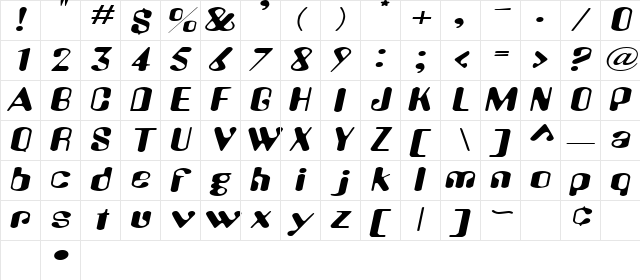
AlienEyeExtended Oblique Free Font
AlienEyeExtended Oblique
Design Context for AlienEyeExtended
AlienEyeExtended is a composed and adaptable typeface that performs quietly and consistently across a wide range of design contexts. The slanted form adds forward momentum and visual energy.
Pro Tip: Use AlienEyeExtended for emphasis, pull quotes, and subheadings where its slanted energy can add rhythm to the layout.